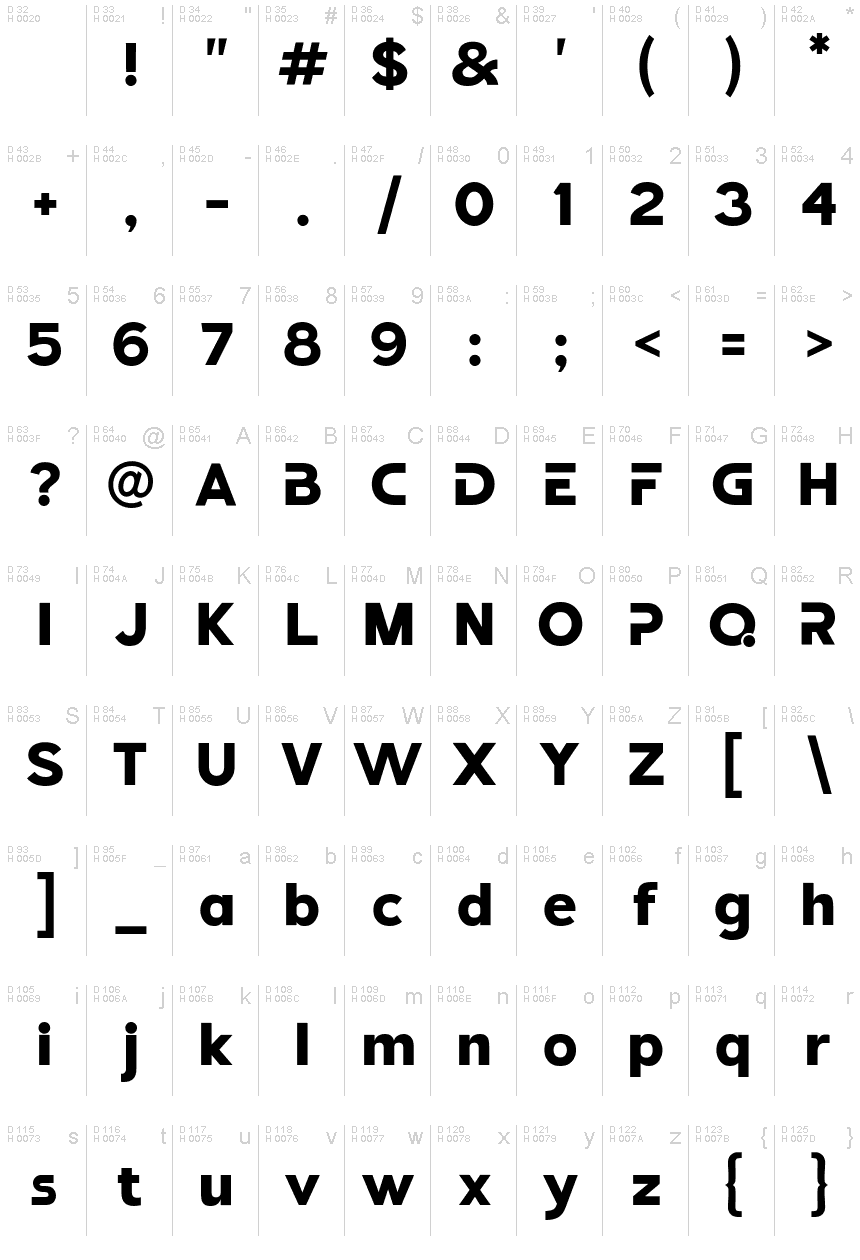
Casinotop Bold
Casinotop Bold is a modern sans serif font designed by Sadritsky. With its bold weight and semi-expanded width, it commands attention and makes a statement. This font is perfect for projects that require a strong and assertive feel, such as branding for high-end casinos or luxury hotels. The clean lines and sleek design of Casinotop Bold also make it suitable for digital designs, such as websites or mobile apps. Whether you're designing print materials like flyers or business cards, or creating digital content, Casinotop Bold will make your project stand out with its boldness and modern style.